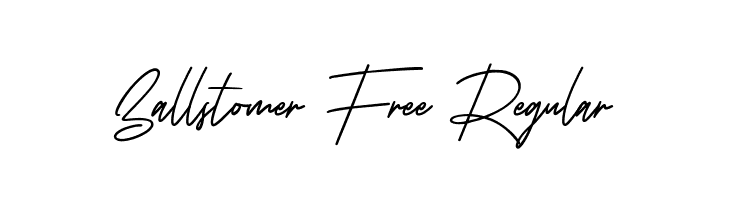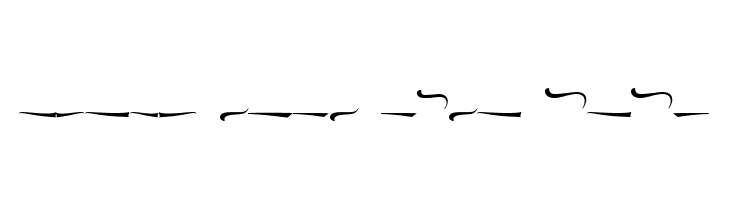
A modern, elegant handwritten font with flowing, interconnected letterforms.
A dynamic brush-style font with expressive, energetic strokes.
An elegant and ornate script font with flowing, decorative letterforms.
A dynamic, flowing script font with elegant, interconnected strokes.
A dynamic, handwritten script font with bold, fluid strokes.
A dynamic and elegant script font with flowing, slender letterforms.
A playful, casual handwritten font with irregular strokes and an organic flow.
A flowing, cursive font with a natural handwritten style.
A decorative font with elegant swashes and flourishes, perfect for artistic designs.
A sophisticated, elegant handwritten font with fluid, connected letterforms.